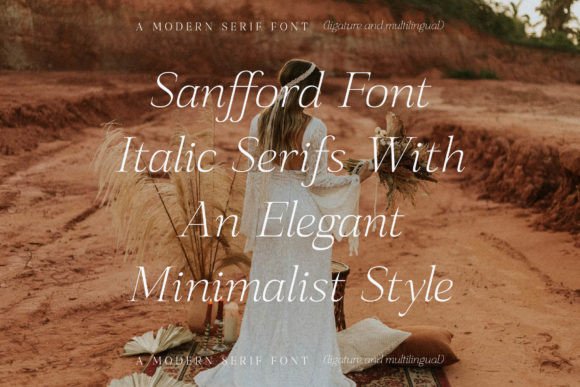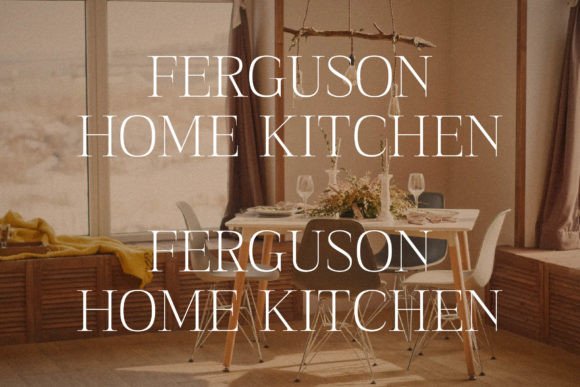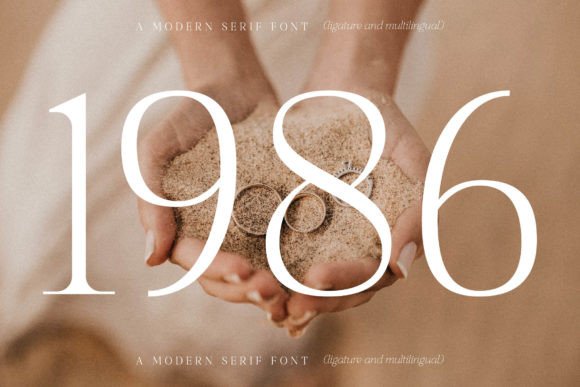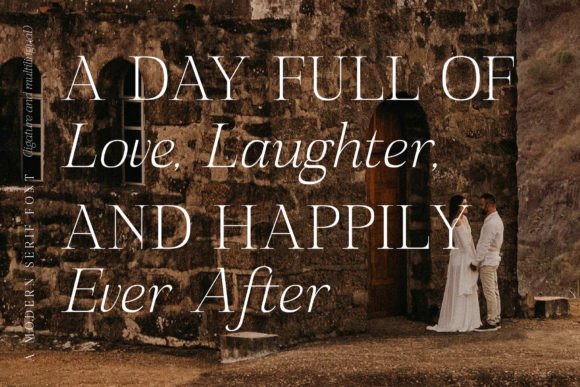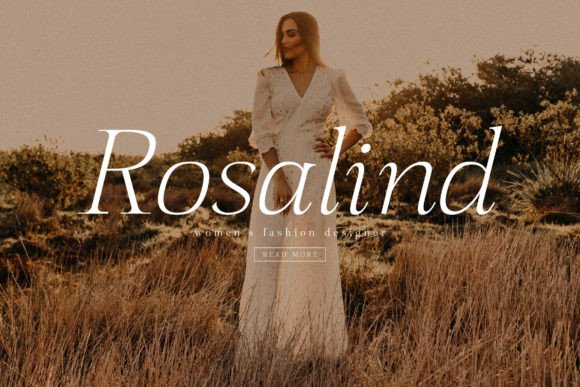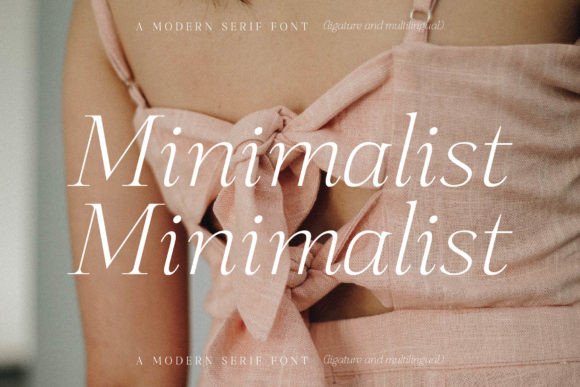
Introduction to Sanfford Font
Proudly present Sanfford Typeface.
A serif modern and classic typeface that has its own unique style & modern look This typeface is perfect for an elegant & luxury logo, book or movie title design, fashion brand, magazine, clothes, lettering, quotes, and so much more.